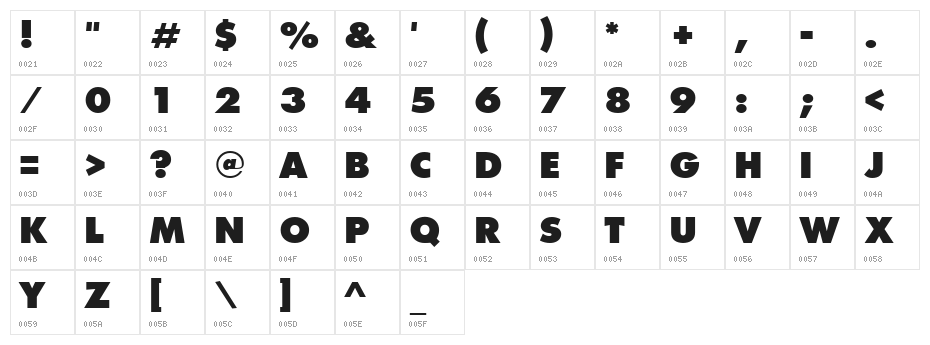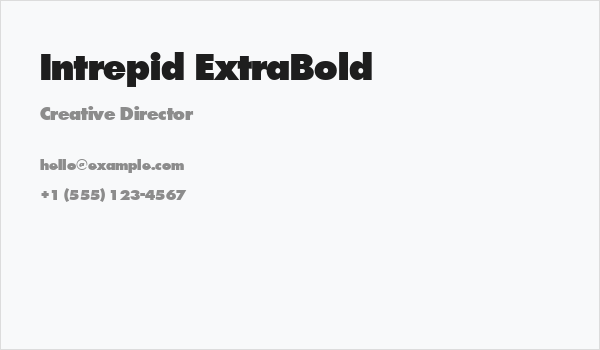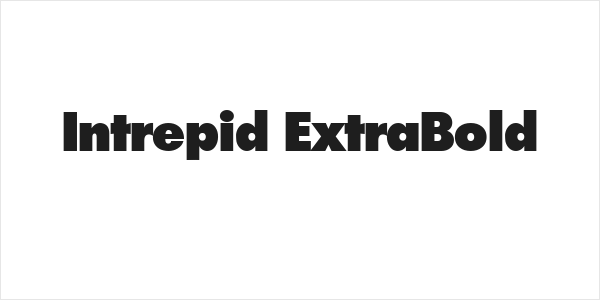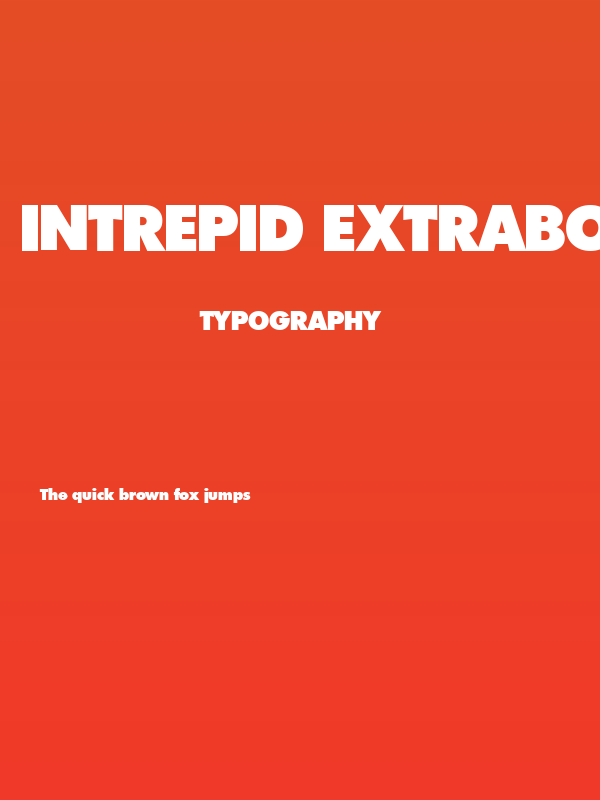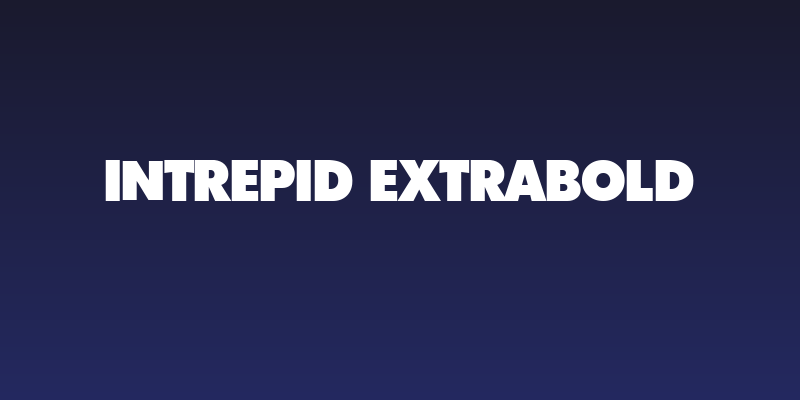
Intrepid ExtraBold Font
Intrepid ExtraBold Description
This font is characterized by its bold and assertive presence, featuring thick strokes and a strong geometric structure. The uppercase and lowercase letters maintain a consistent weight, providing a uniform appearance across all characters. The numerals and special characters are equally robust, ensuring readability and impact. The font's design is clean and modern, with a focus on clarity and strength, making it suitable for attention-grabbing headlines and impactful designs. Its boldness is complemented by a slightly condensed width, allowing for efficient use of space without sacrificing legibility.